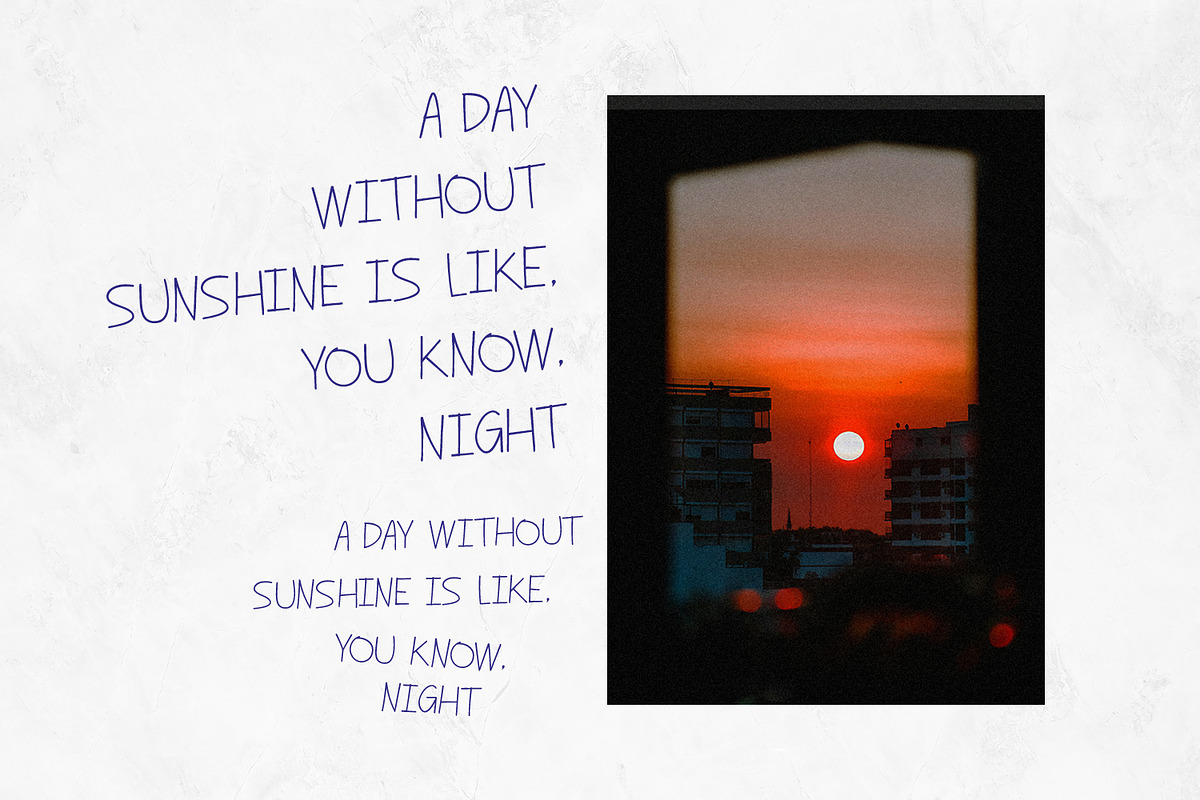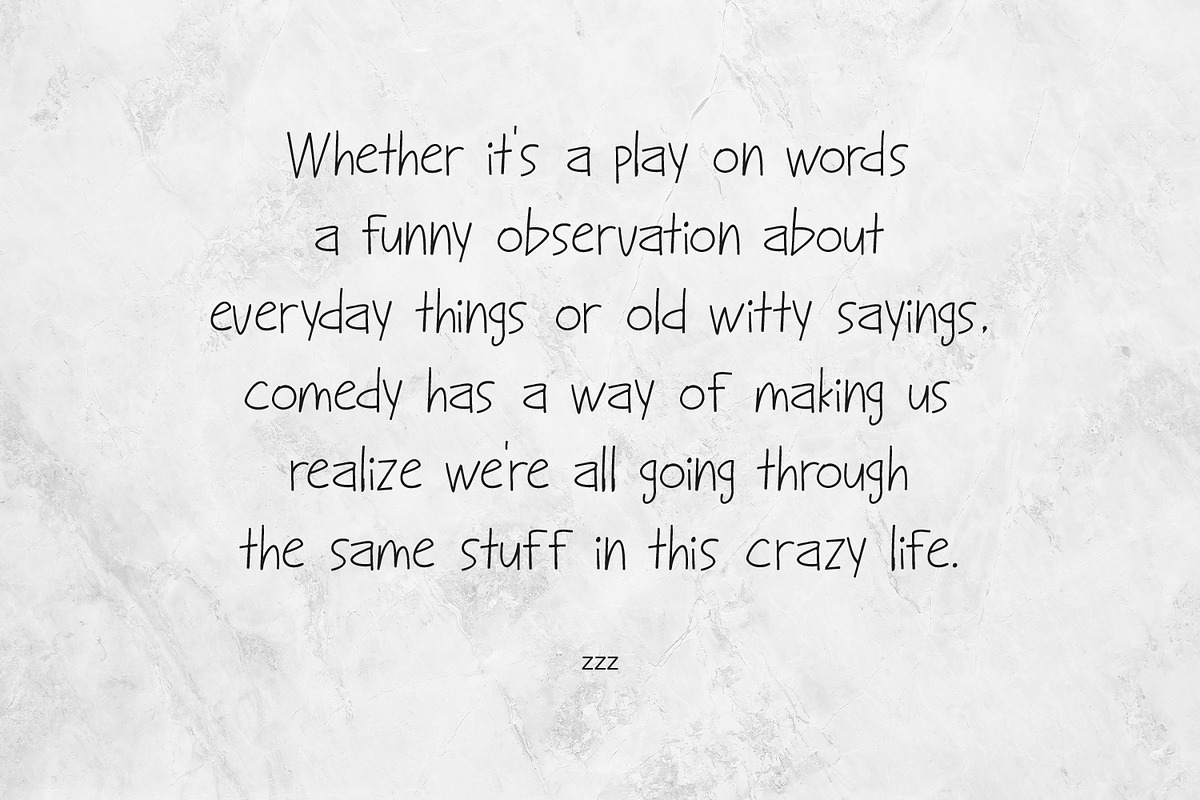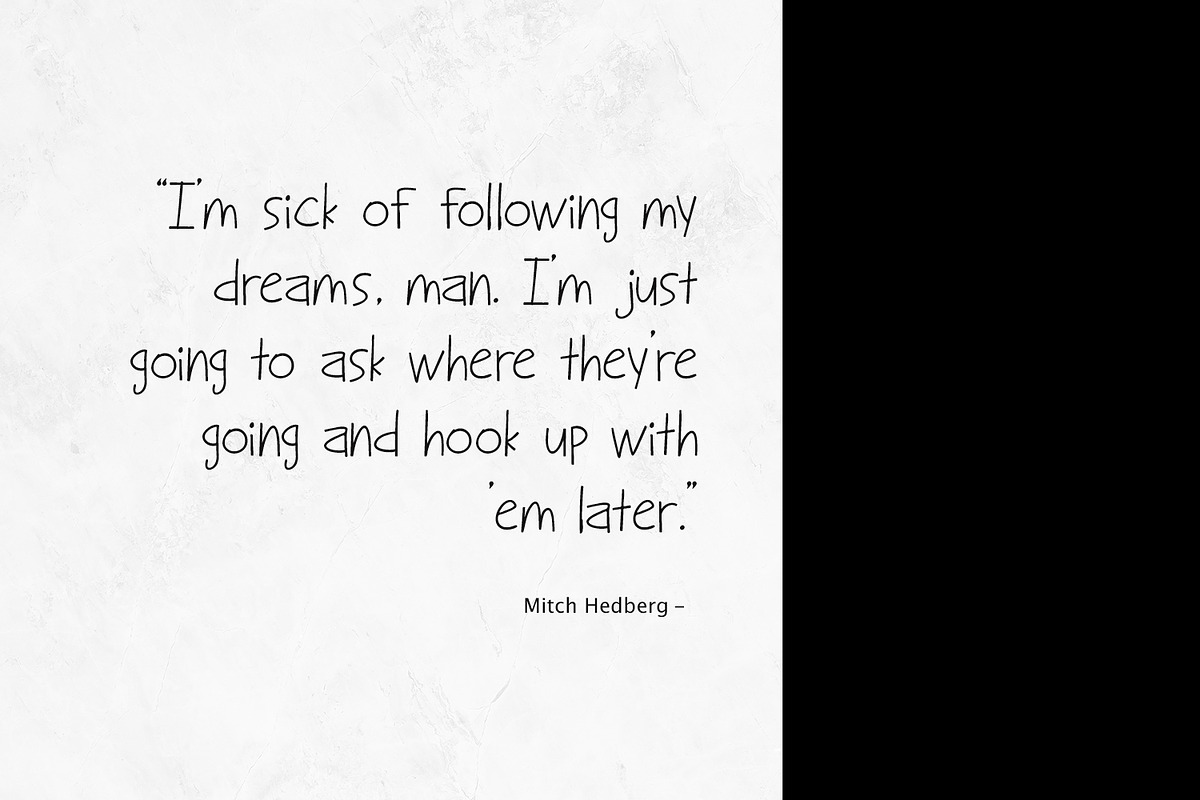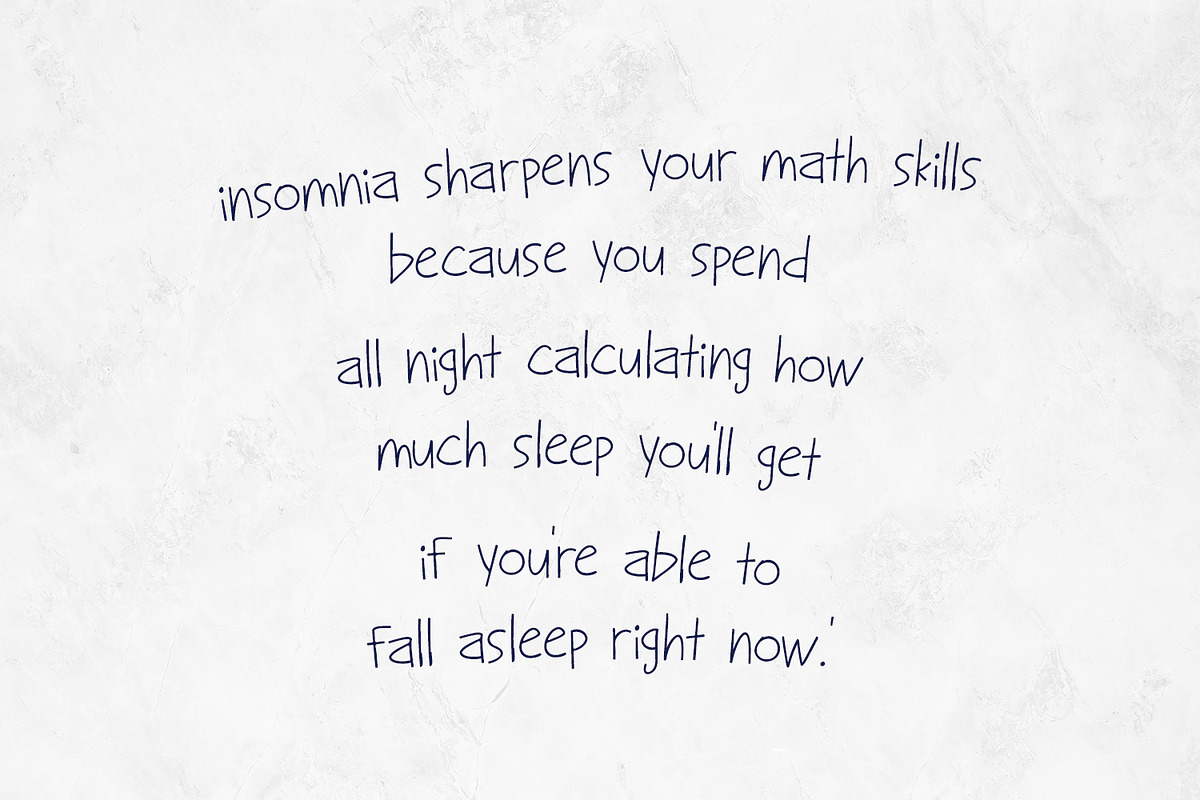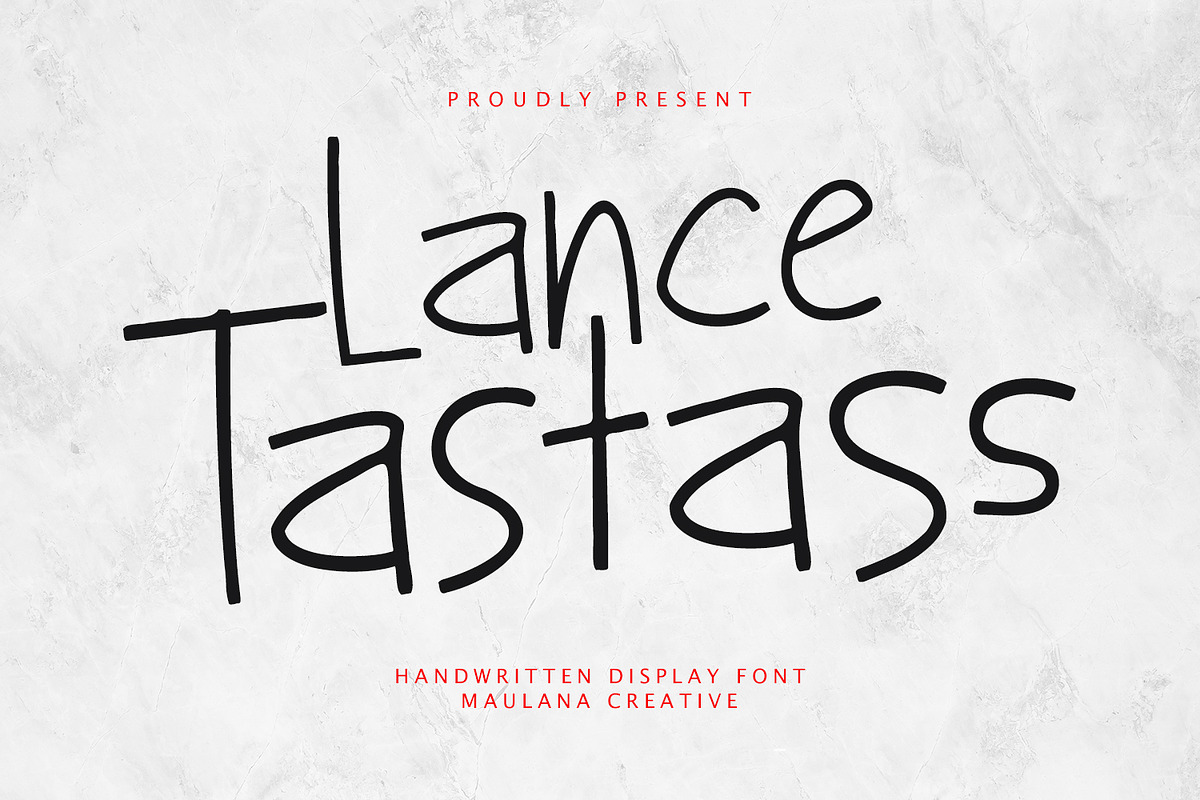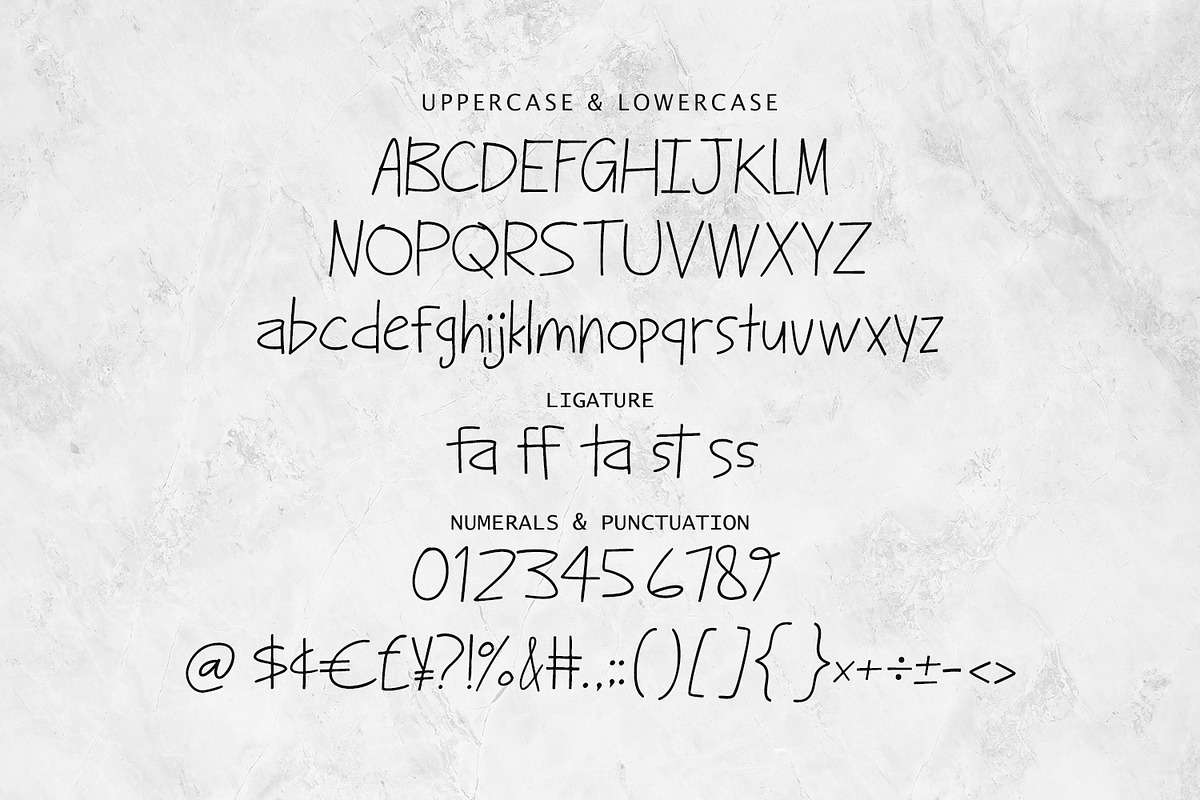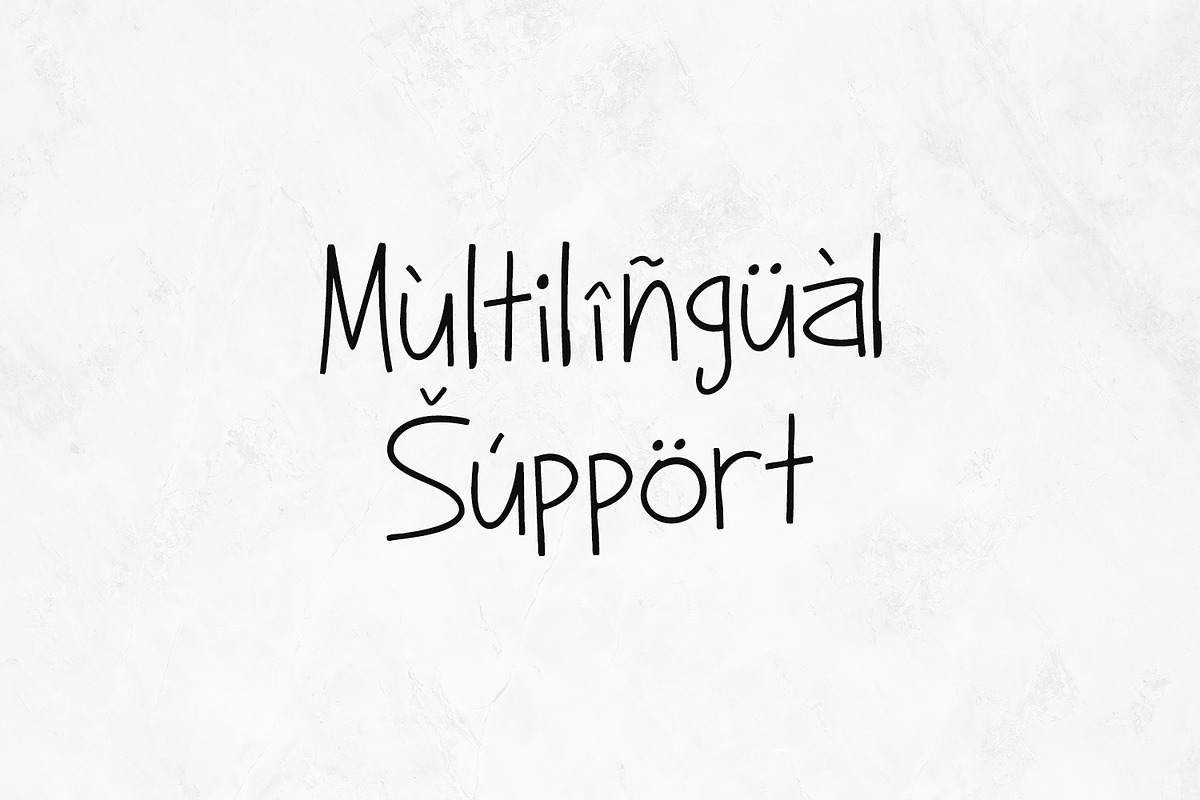
Lance Tastass Playful Handwritten
Lance Tastass is a playful handwritten display font that brings a casual, modern, and personal touch to your designs. With its natural hand-drawn strokes and quirky character shapes, this font is perfect for projects that need a friendly and approachable vibe.
It includes uppercase, lowercase, numerals, punctuation, and fun ligatures to make your typography look more authentic and creative. Whether you’re working on quotes, posters, social media content, branding, invitations, or packaging design, Lance Tastass will add a unique personality and warmth to your work.
- Uppercase and lowercase letters